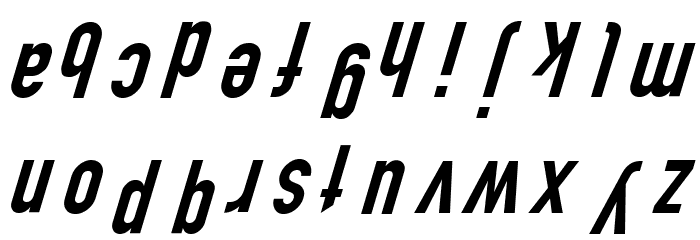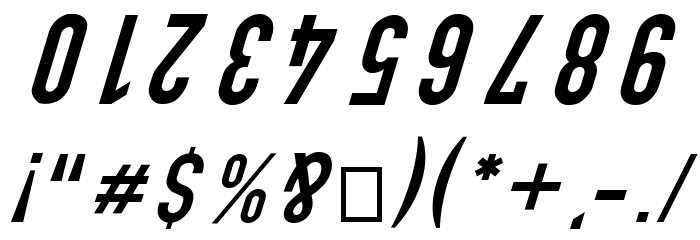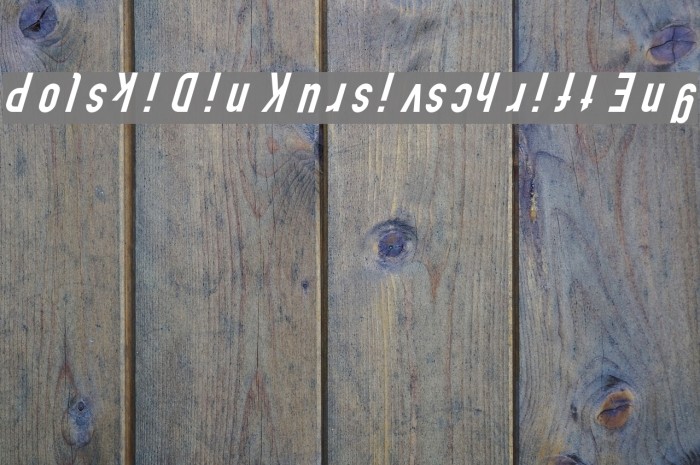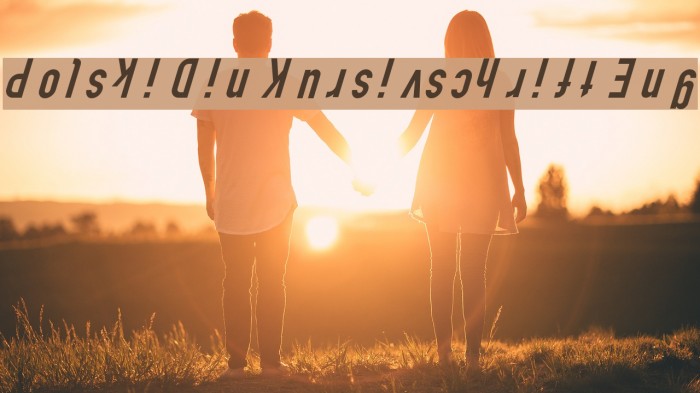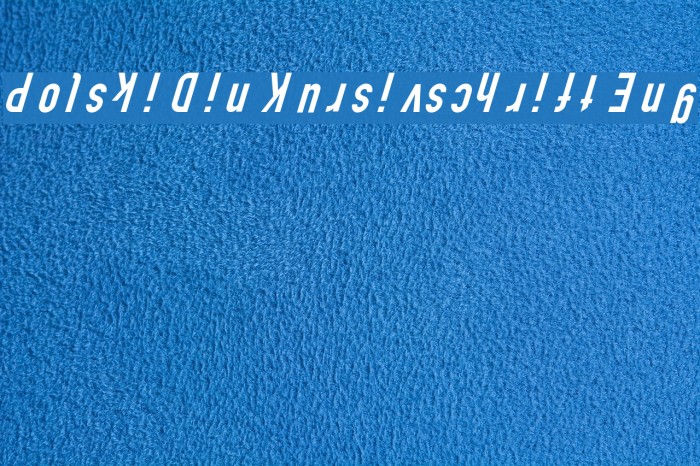
Polski Din Kursivschrift Eng Font
This font features a distinct slanted style, giving it a dynamic and energetic appearance. The uppercase and lowercase letters are designed with a consistent forward tilt, creating a sense of movement. The characters are bold with a uniform stroke width, contributing to a strong visual impact. The numerals and special characters maintain the same slant, ensuring cohesion across all elements. The font's design is clean and modern, with a slight retro touch, making it versatile for various applications. Its boldness and slant make it particularly suitable for attention-grabbing headlines or logos.
A bold, slanted font with a dynamic and modern appearance.